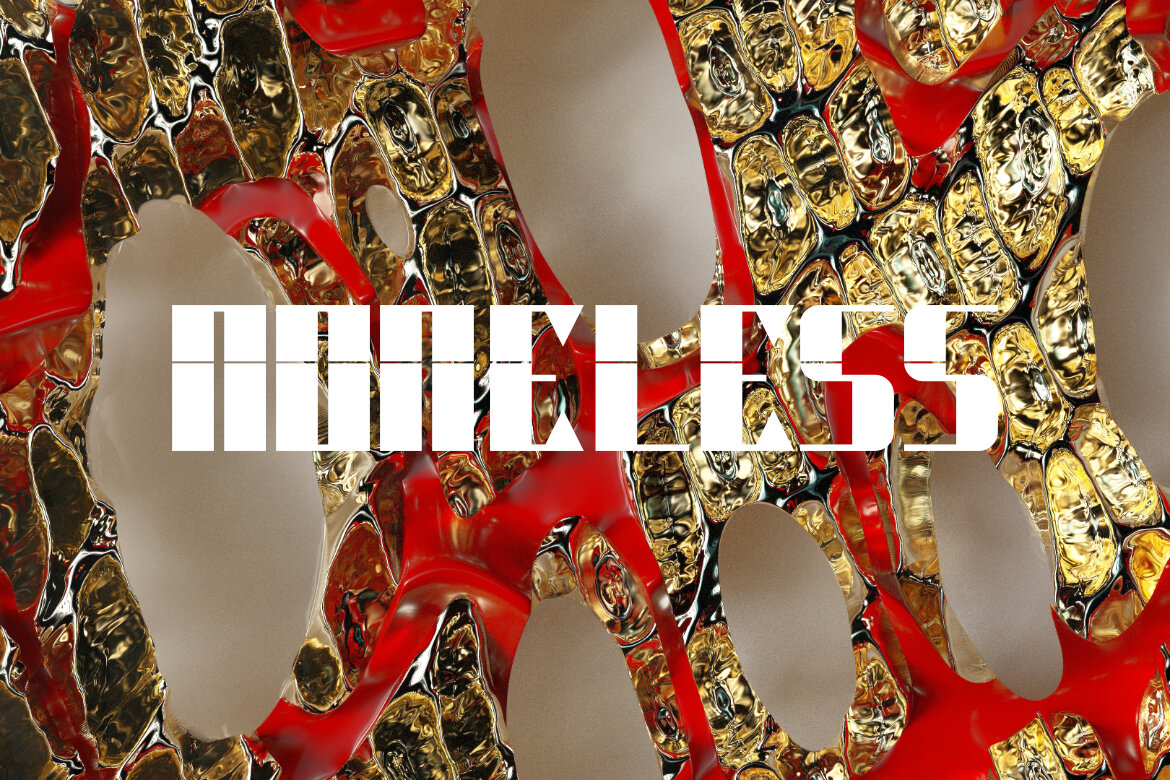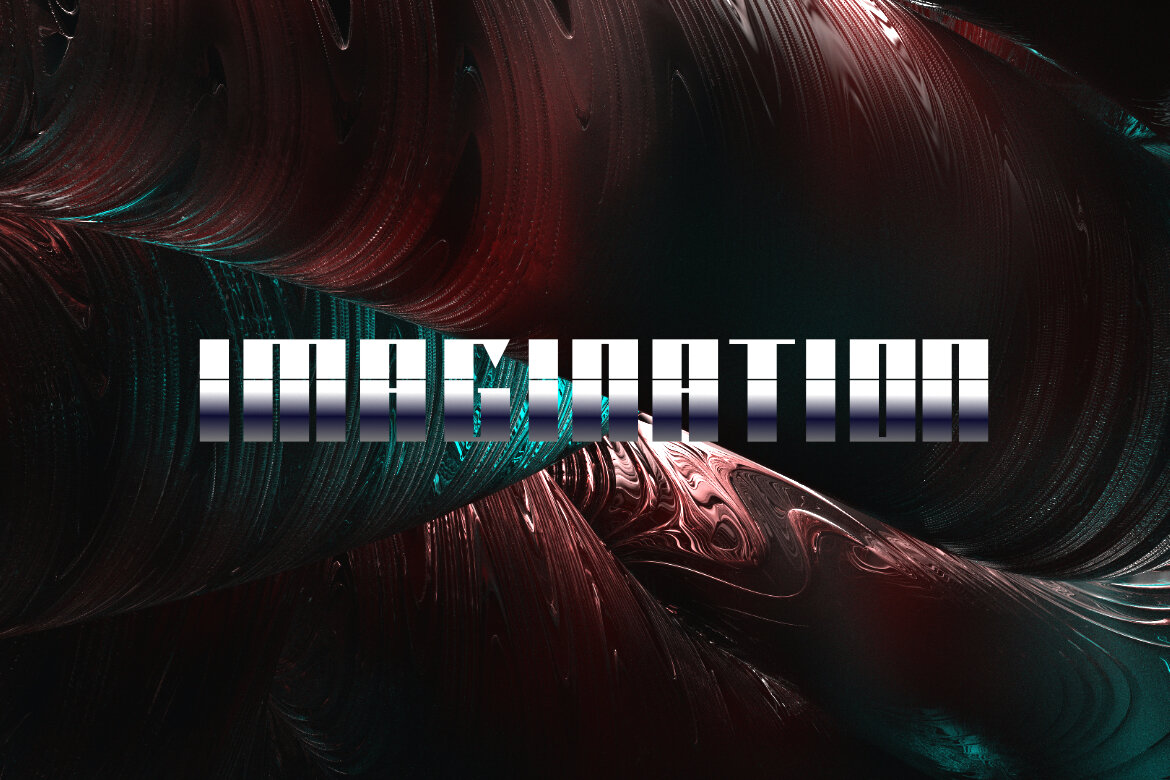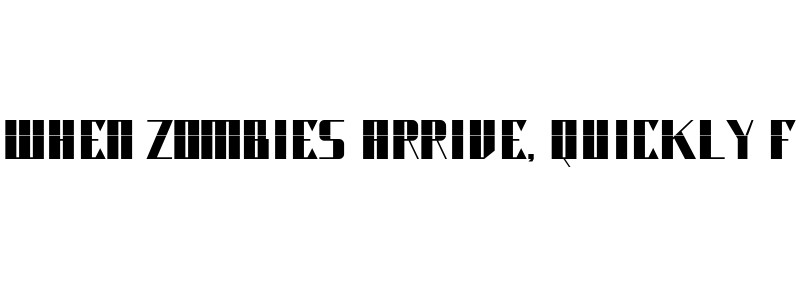
Wonome Pro FREE Font
Wonome is a bold and robotic display font. Whatever the topic, this font will be a wonderful asset to your font library, as it has the potential to enhance any creation.